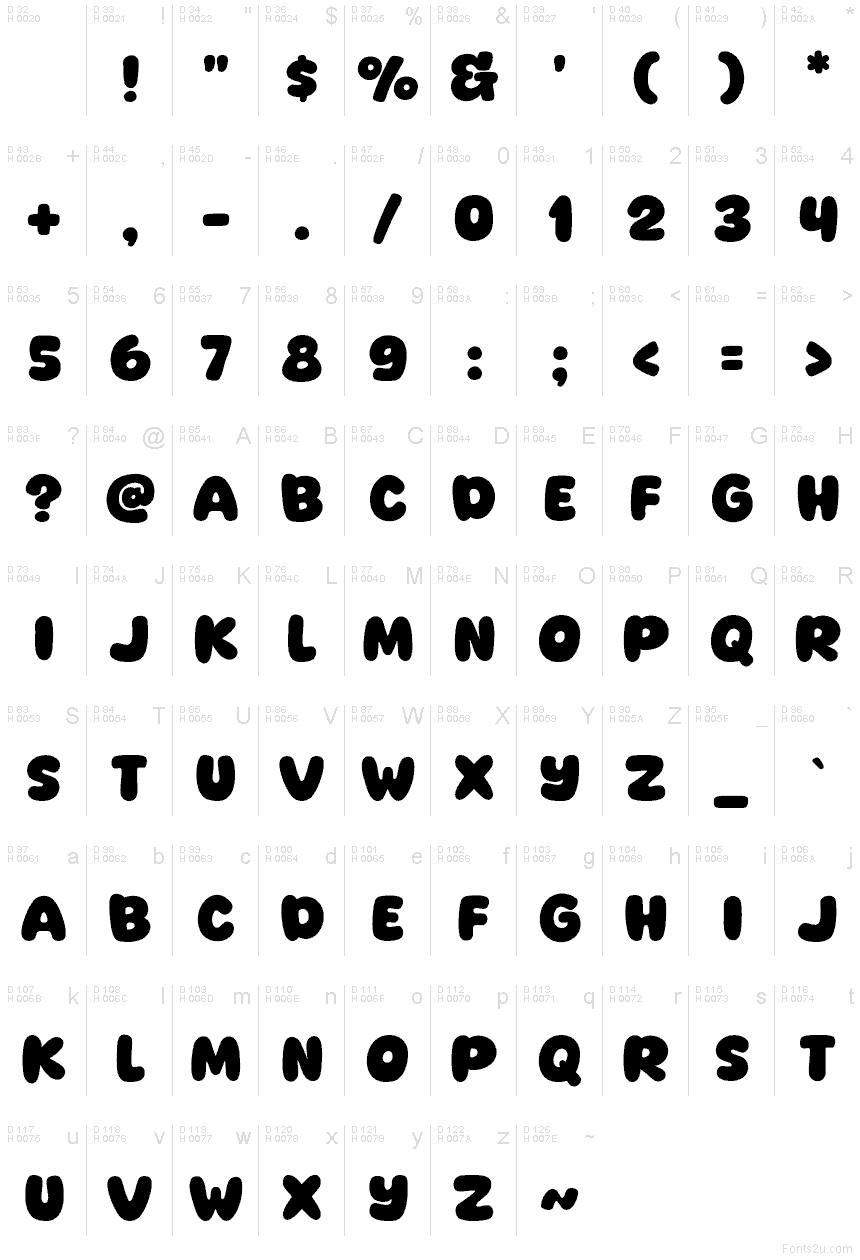
Readson
Readson font, designed by Khurasan, is a cartoon display typeface characterized by its bold letterforms and distinct vintage influence. This playful yet casual bold font features smooth rounded edges which add to its friendly cheerful appeal and make for an easy read due to the contrasting background.
Appropriately used in titles and short sections, this free humanist type can be used in books, greeting cards, brochures, food packaging designs or menus. Owners of clothing brands can also use it for labels for their hats or t-shirts or websites added to mockups presented to clients.